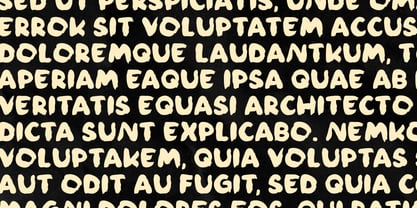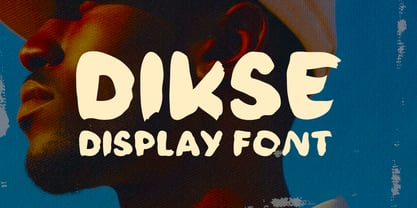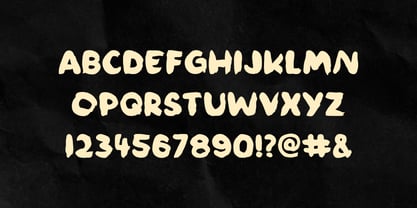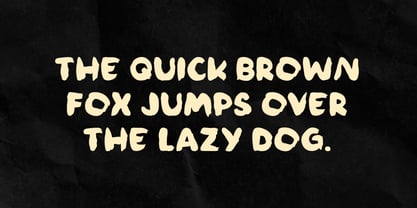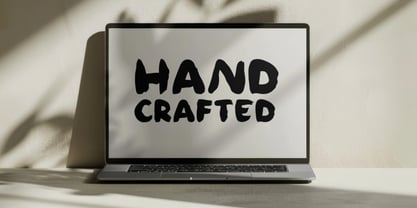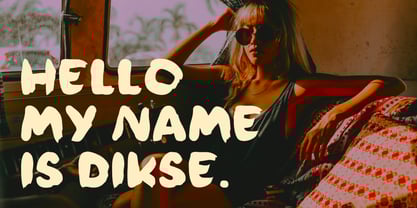
Dikse
by ESEM Type
Dikse is a bold, quirky, and eye-catching display font that brings a raw and authentic hand-drawn feel to any design. Perfect for posters, music covers, streetwear branding, magazine headers, retro-style ads, and anything that needs a punch of personality.
With its brush-like imperfections and playful strokes, Dikse brings character and uniqueness to digital and print design. Whether you're creating a retro aesthetic, a modern urban style, or something completely new – Dikse will deliver bold impact.
Perfect for:
• Album Covers
• Clothing Brands
• Social Media Graphics
• Skateboard / Street Art Designs
• Editorial Headlines
• Movie Posters
• Travel Vlogs & YouTube Thumbnails
About ESEM Type
An independent font foundry that was created out of passion for typography and creative needs. The founder and author is Szymon Mandziarz. The beginnings of letter design began many years ago with graffiti. The foundry focuses on the production of modern, unique typefaces with a clear form and details that attract attention. The font foundry aims at providing its customers with high quality fonts that stand out with their original style.